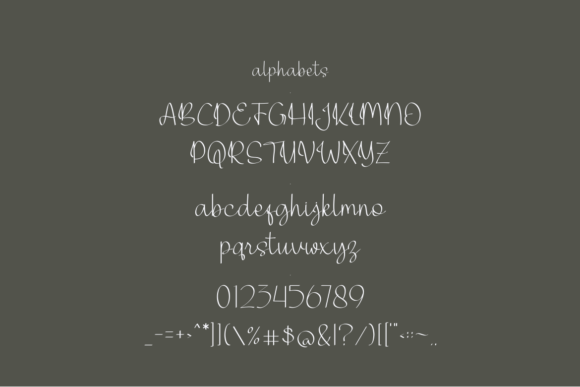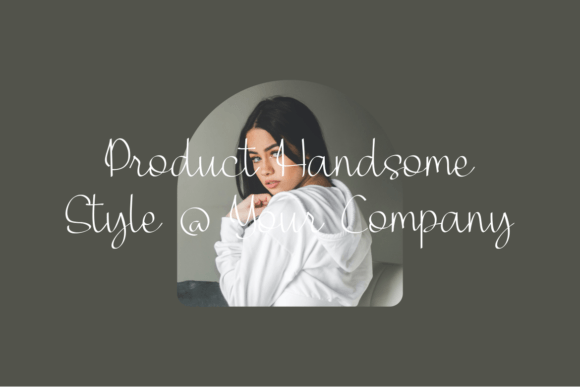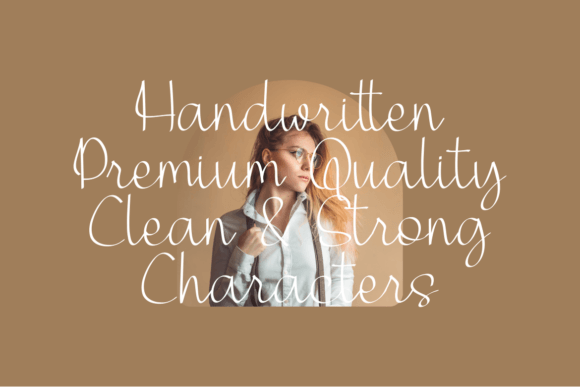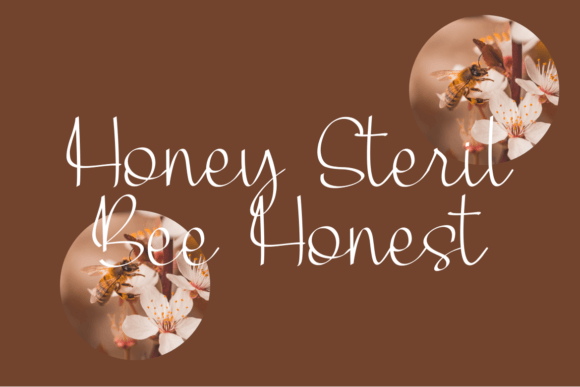
The Elegance of Bagheltsa Font: A Designer’s Delight
I’ll never forget the time I was working on a fashion branding project, and my client asked for a font that exuded elegance and sophistication. I scoured the internet, tried out countless fonts, but nothing seemed quite right. That was until I stumbled upon Bagheltsa Font. ✨ It was love at first sight! The fluid strokes, the luxurious feel, and the versatility of this modern script font won me over. In this article, I’ll share my experience with Bagheltsa Font, its features, and how to make the most of it in your designs.
An Honest Review of Bagheltsa Font
- ✨ Elegant and classy design that’s perfect for high-end fashion and apparel projects
- ✅ Highly versatile and adaptable to various design contexts, from logos to social media graphics
- 💫 Beautifully crafted to convey a sense of luxury and sophistication
- 📚 Extensive OpenType features, glyphs, and stylistic alternates for creative freedom
While Bagheltsa Font is an excellent choice for many projects, there are a few things to keep in mind:
- ⚠️ Some users may find the font a bit too ornate for very casual or playful designs
- 🤔 Limited use of uppercase letters, which may require creative workarounds
A Practical Guide to Using Bagheltsa Font
Bagheltsa Font offers a range of OpenType features, glyphs, and stylistic alternates that can elevate your designs. Some of these features include:
| Feature | Description |
| Ligatures | Replace standard character combinations with stylistic ligatures |
| Stylistic Alternates | Access alternative characters for creative variation |
| Glyphs | Explore a range of additional characters, such as ornaments and swashes |
The Story Behind Bagheltsa Font
Bagheltsa Font was designed by a team of typographers who aimed to create a modern script font that exudes elegance and sophistication. Inspired by traditional calligraphy and modern digital design, Bagheltsa Font is the result of meticulous craftsmanship and attention to detail.
| Font Name | Bagheltsa Font |
| Author | ponuppo |
Q: What is Bagheltsa Font best suited for?
A: Bagheltsa Font is ideal for fashion, apparel projects, signatures, album covers, logos, branding, magazines, social media, and advertisements.
Q: Is Bagheltsa Font easy to read?
A: Bagheltsa Font is designed to be elegant and sophisticated, but it may not be the most readable font for body text. It’s best used for headlines, titles, and short text passages.